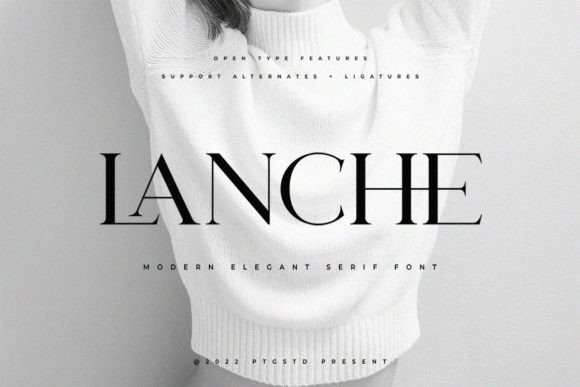
Lanche Font
Lanche is a modern, elegant, and stylish serif font. Add it to your favorite designs and watch how it instantly adds a luxury spark to them.
This font is PUA encoded which means you can access all of the amazing glyphs and ligatures with ease!